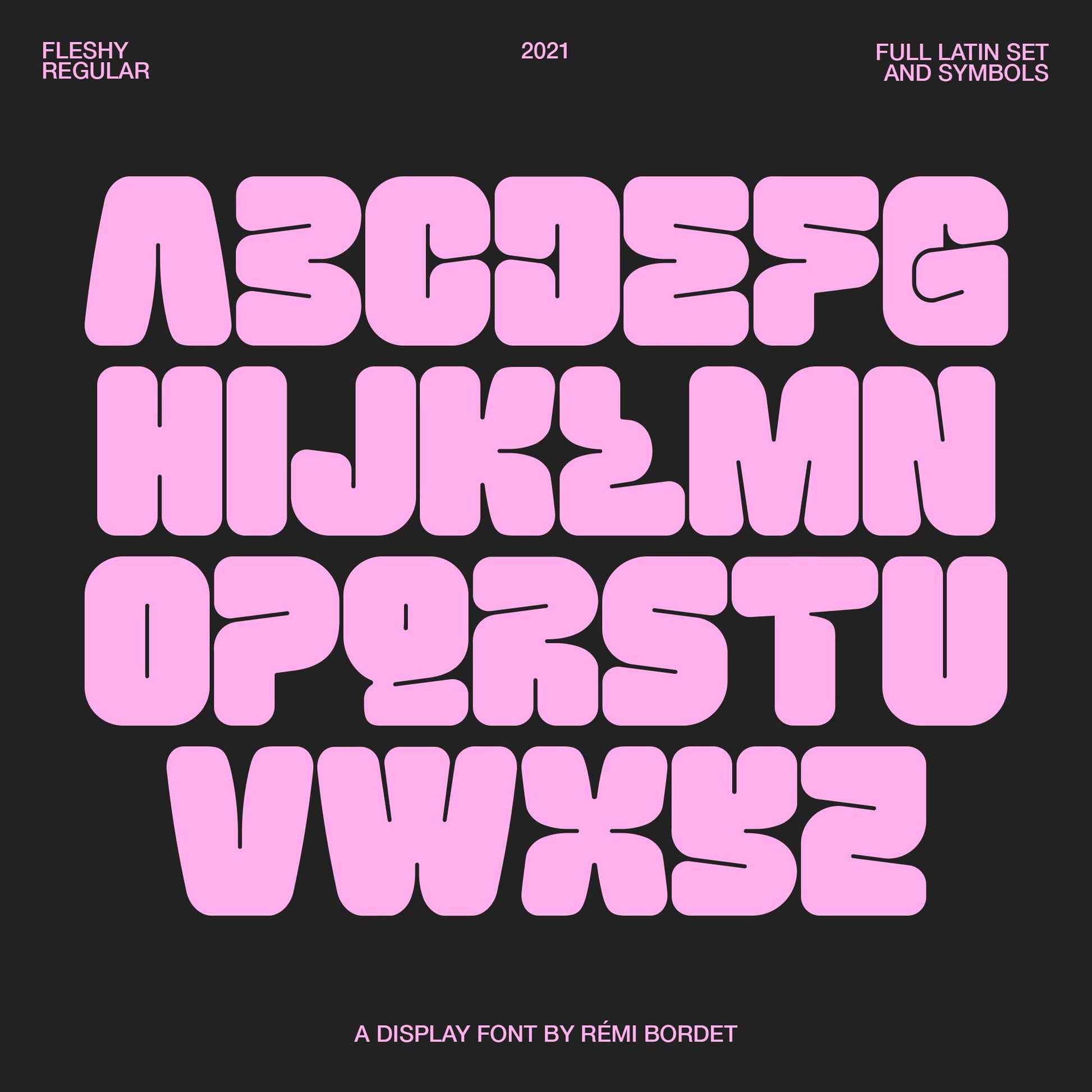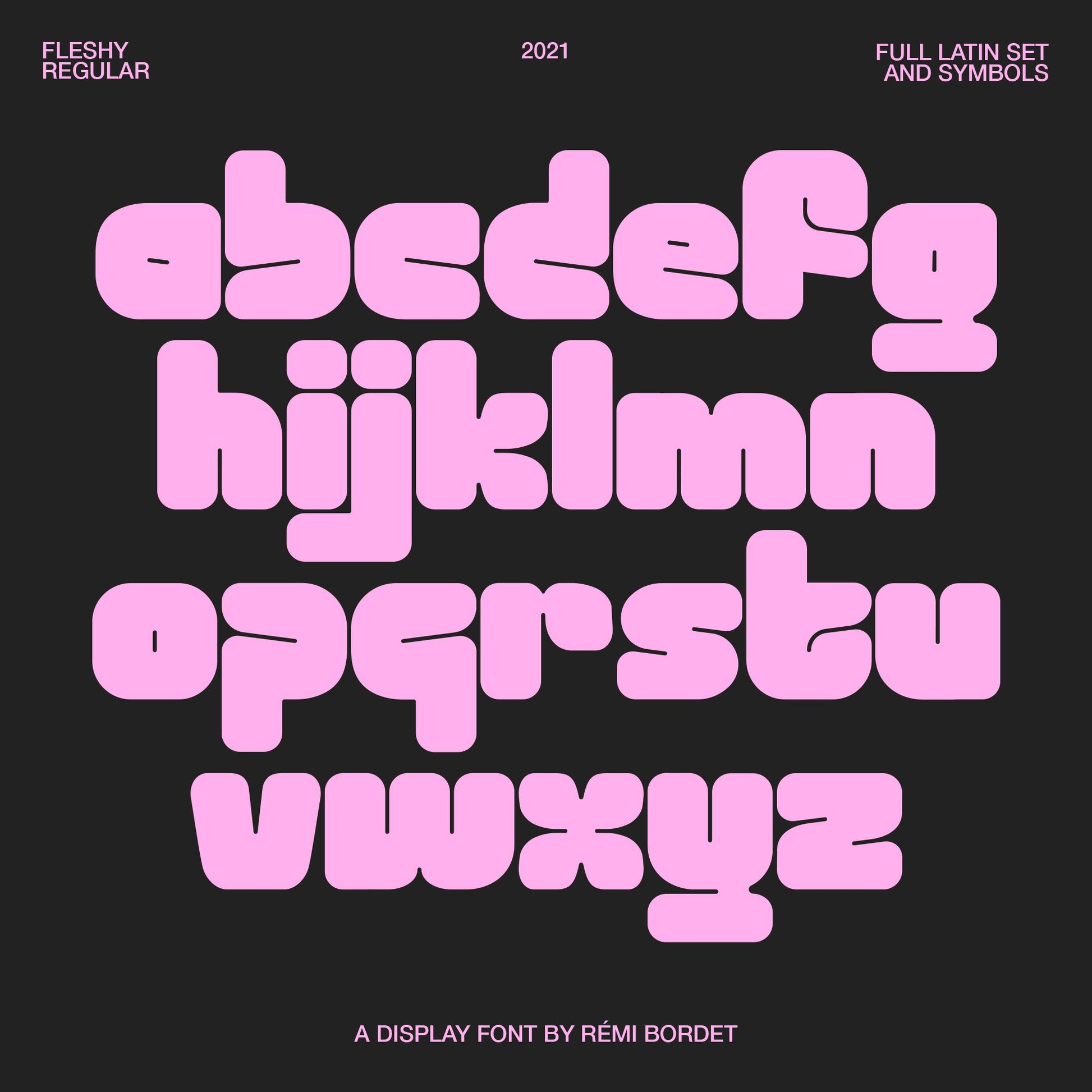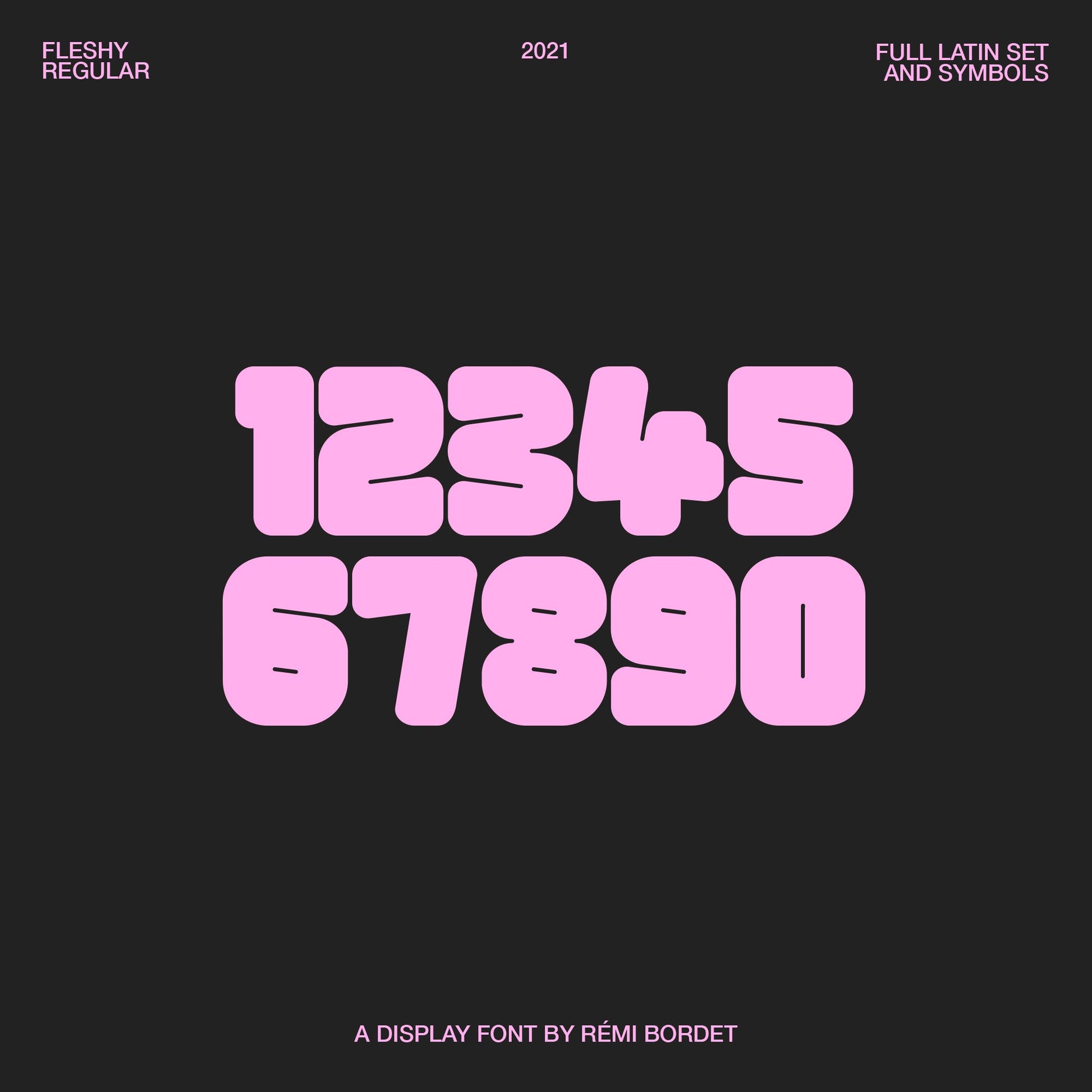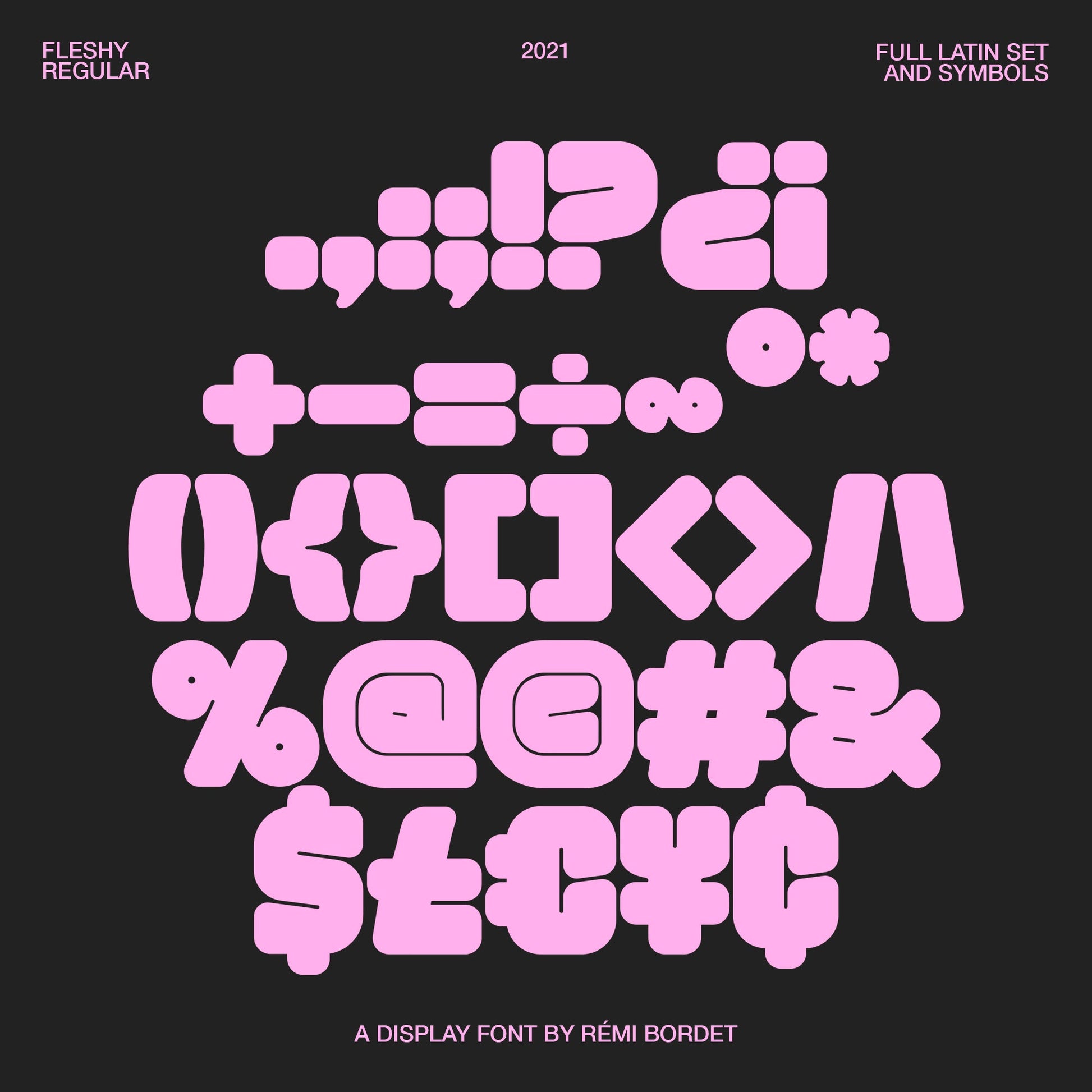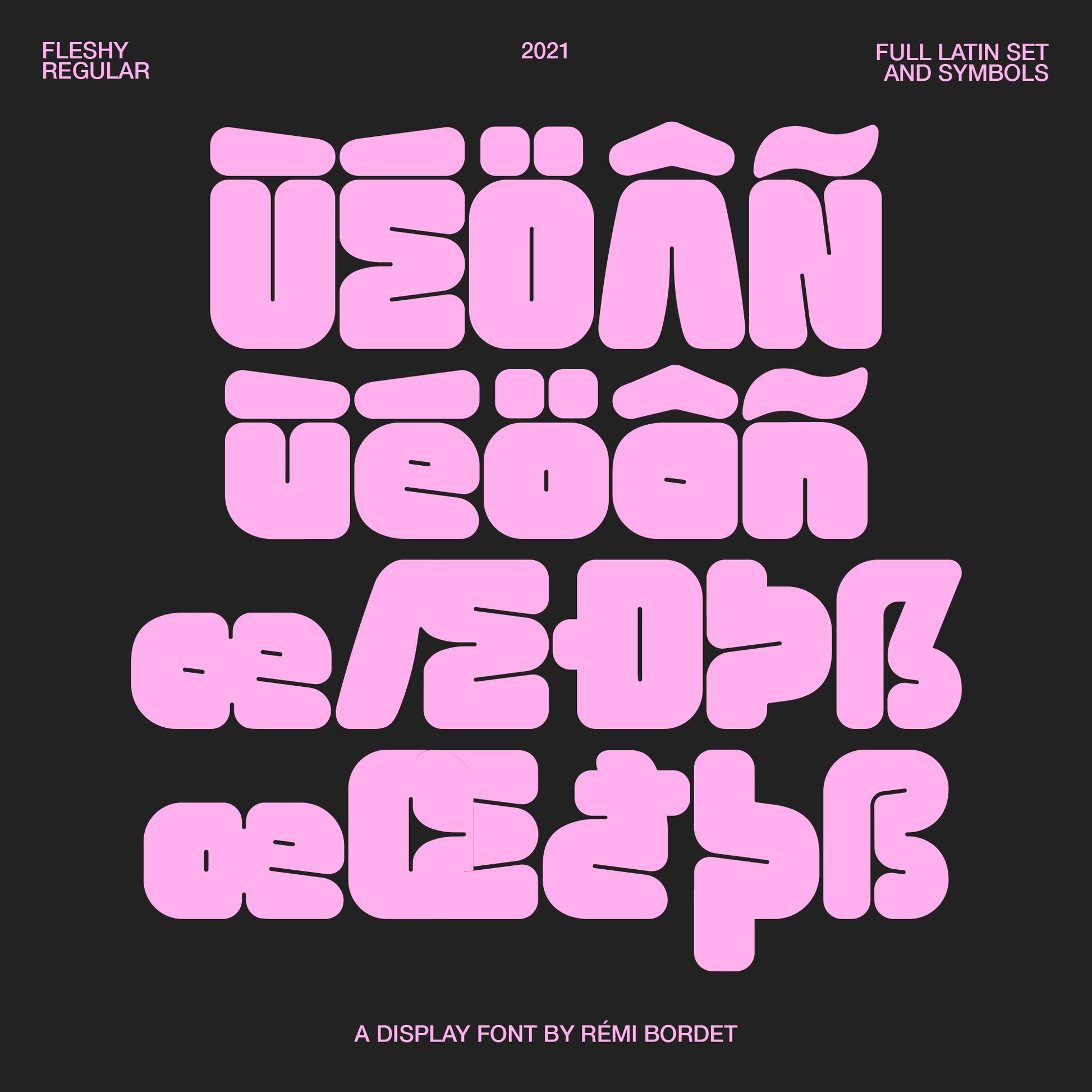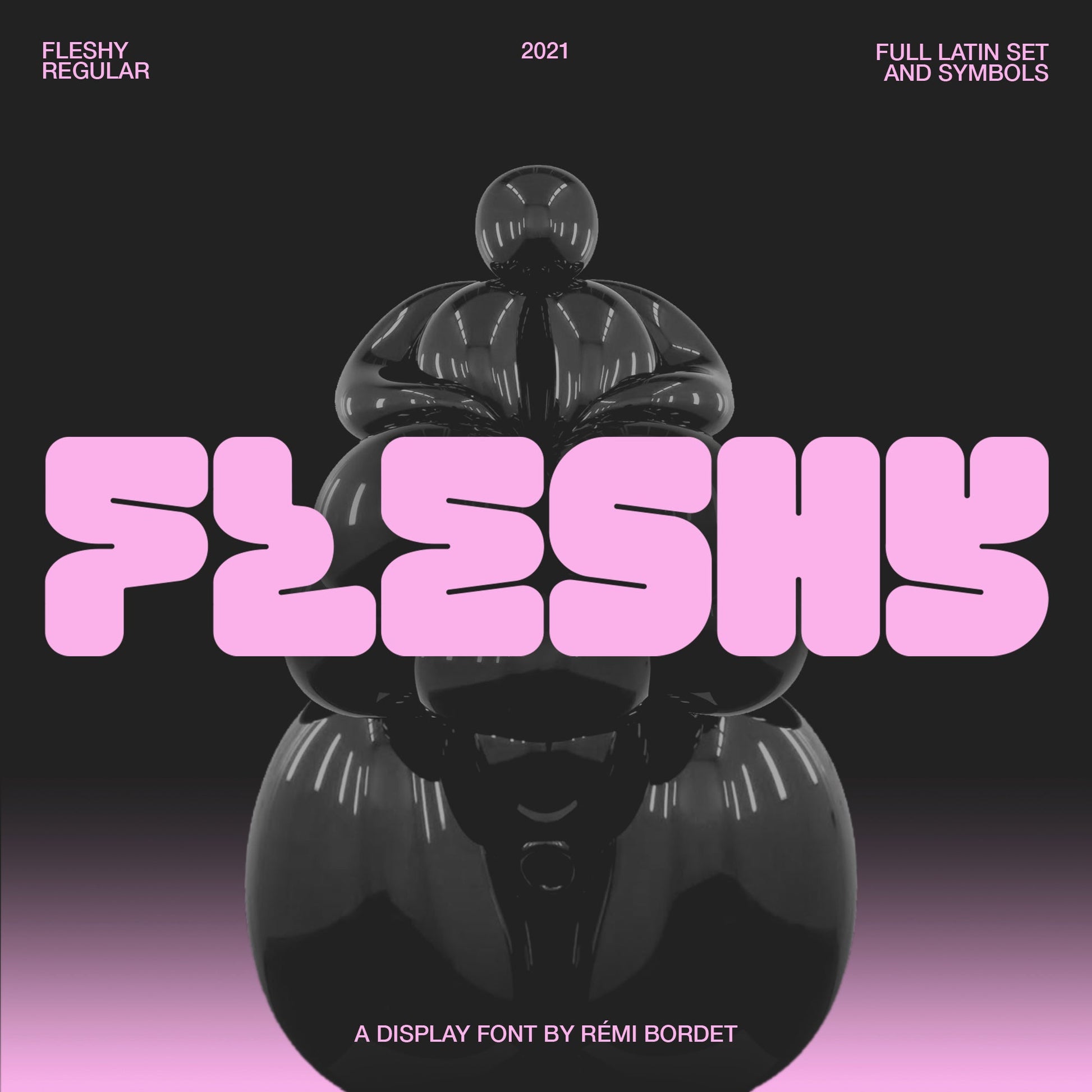
Fleshy Font is a playful display typeface that draws inspiration from old-school 70s and 80s display fonts, fused with urban graffiti aesthetics, and reimagined with a modern, experimental twist. With its tight apertures that minimize negative space, Fleshy Font creates bold, impactful letters that truly stand out. The playful shapes offer a fresh and contemporary take on retro classics, making it a versatile choice for various design applications. Perfect for editorial layouts, poster designs, branding projects, and unique visual identities, Fleshy Font brings a vibrant and dynamic edge to your creative work.